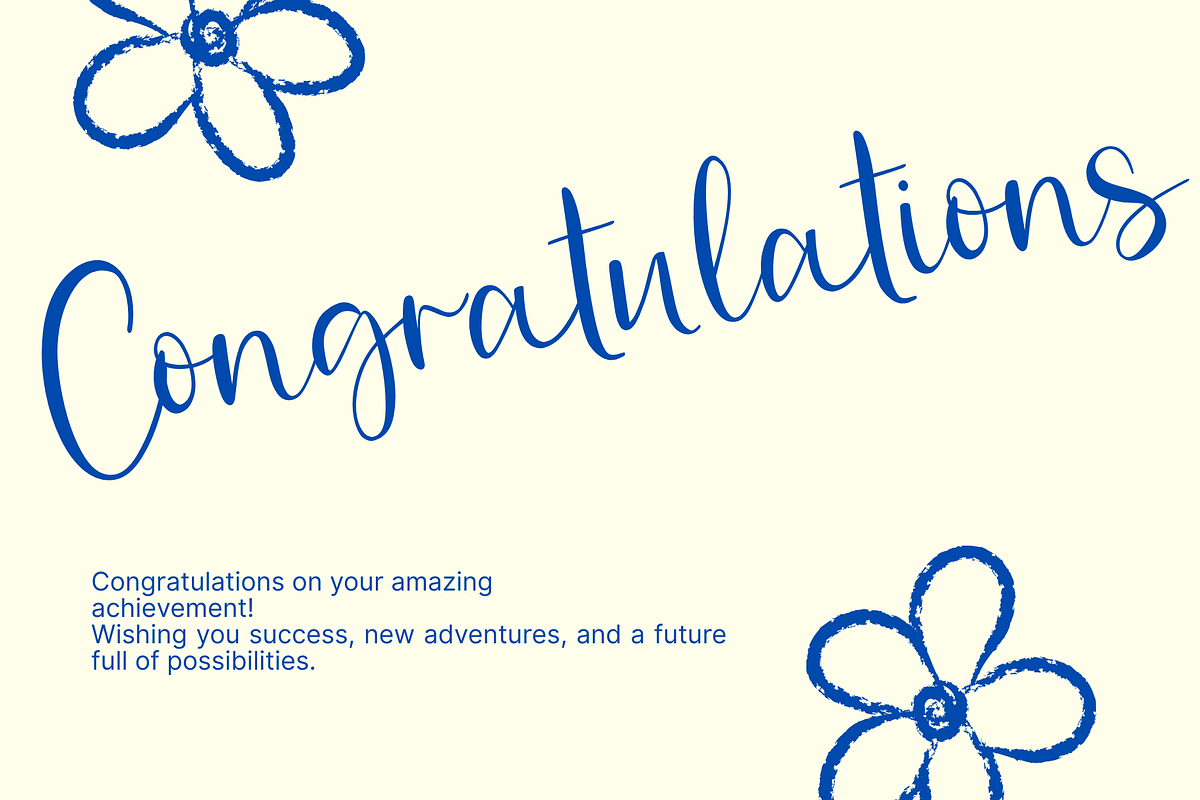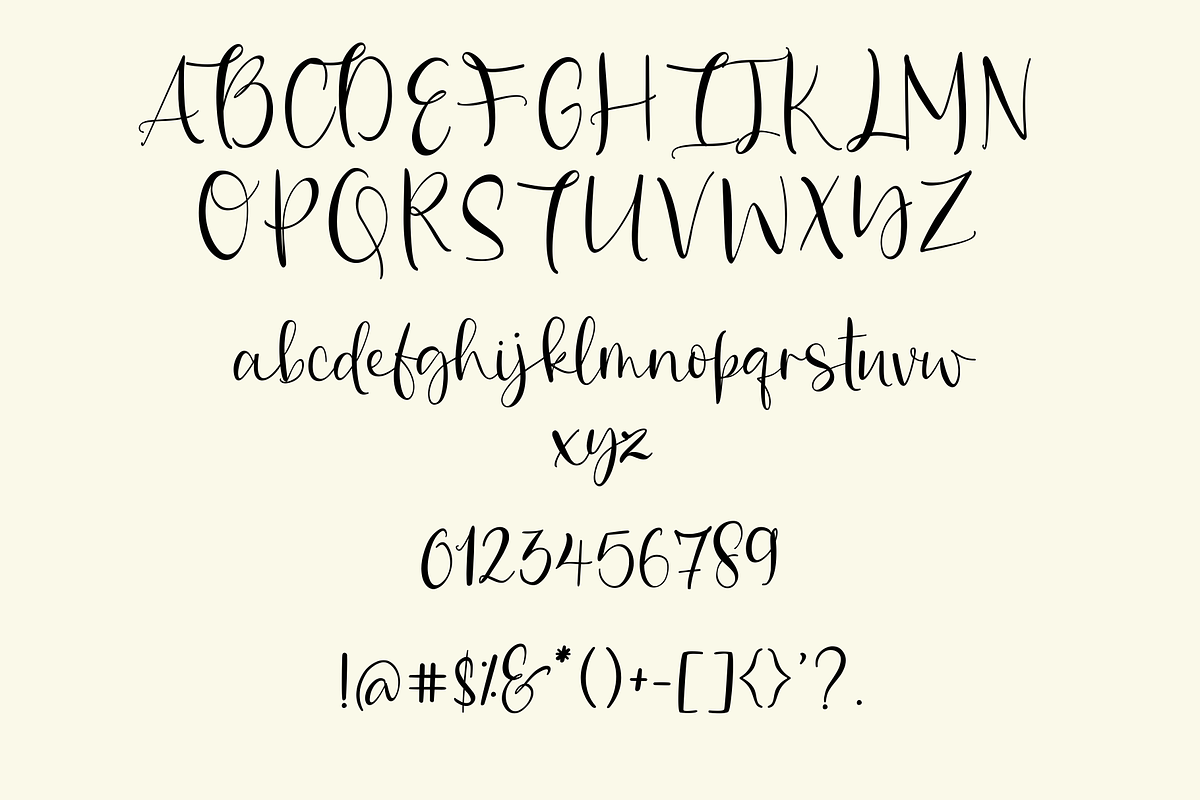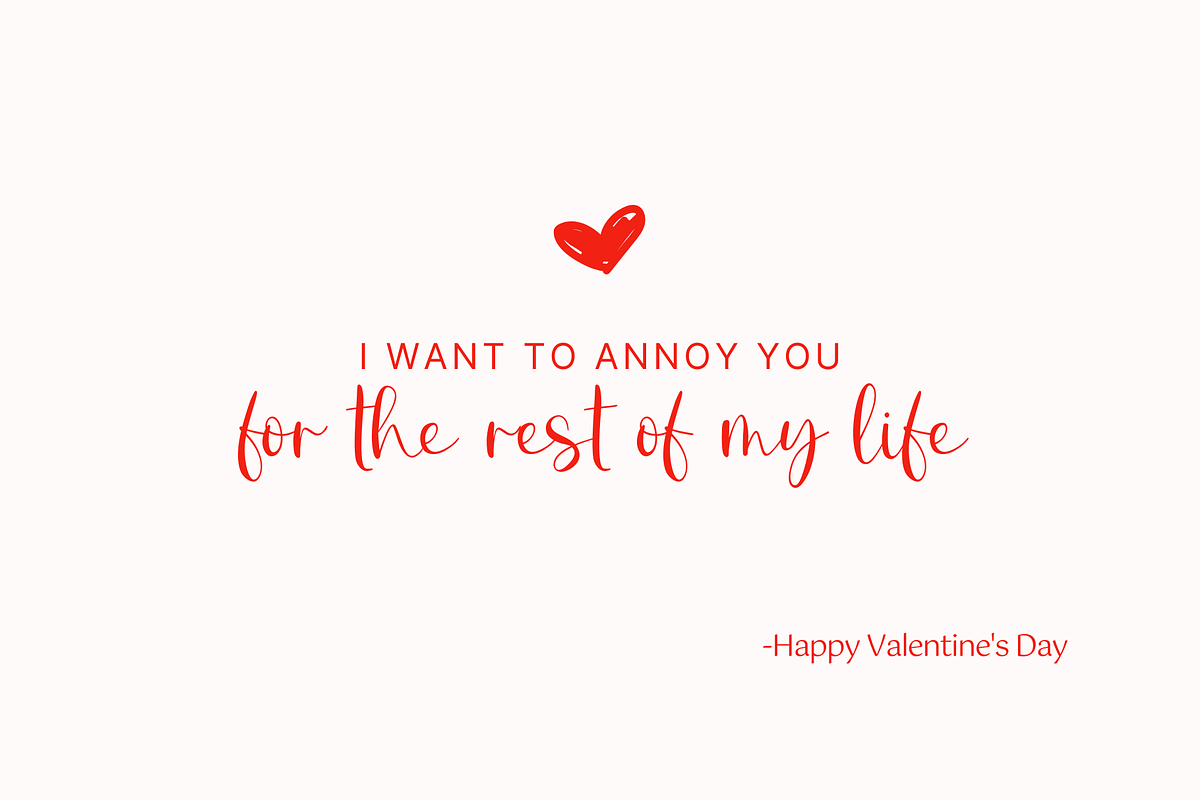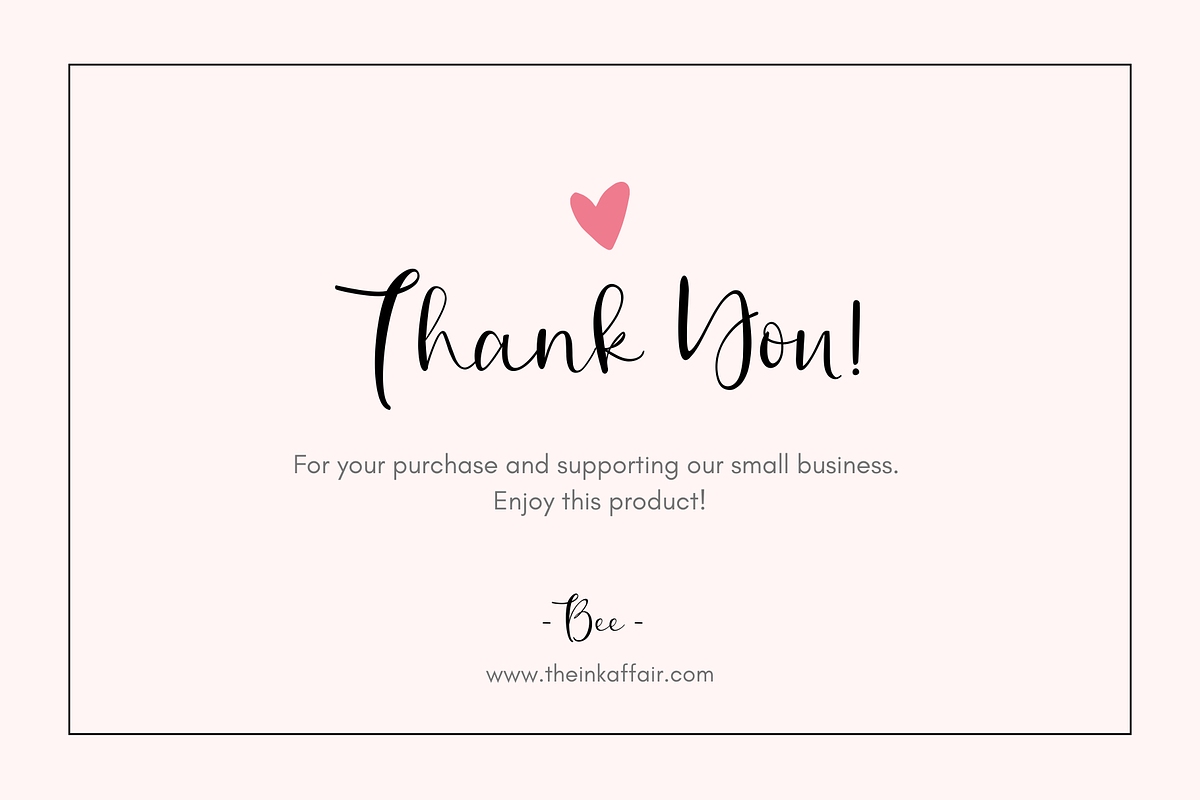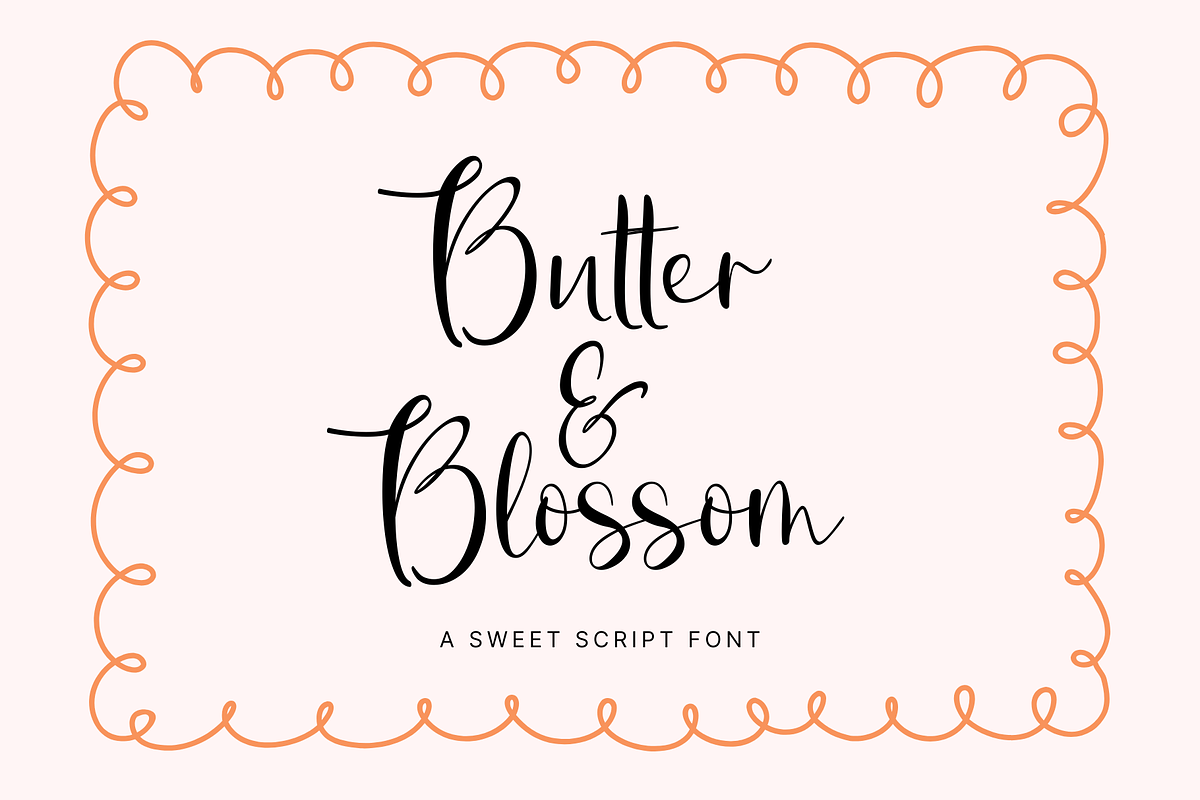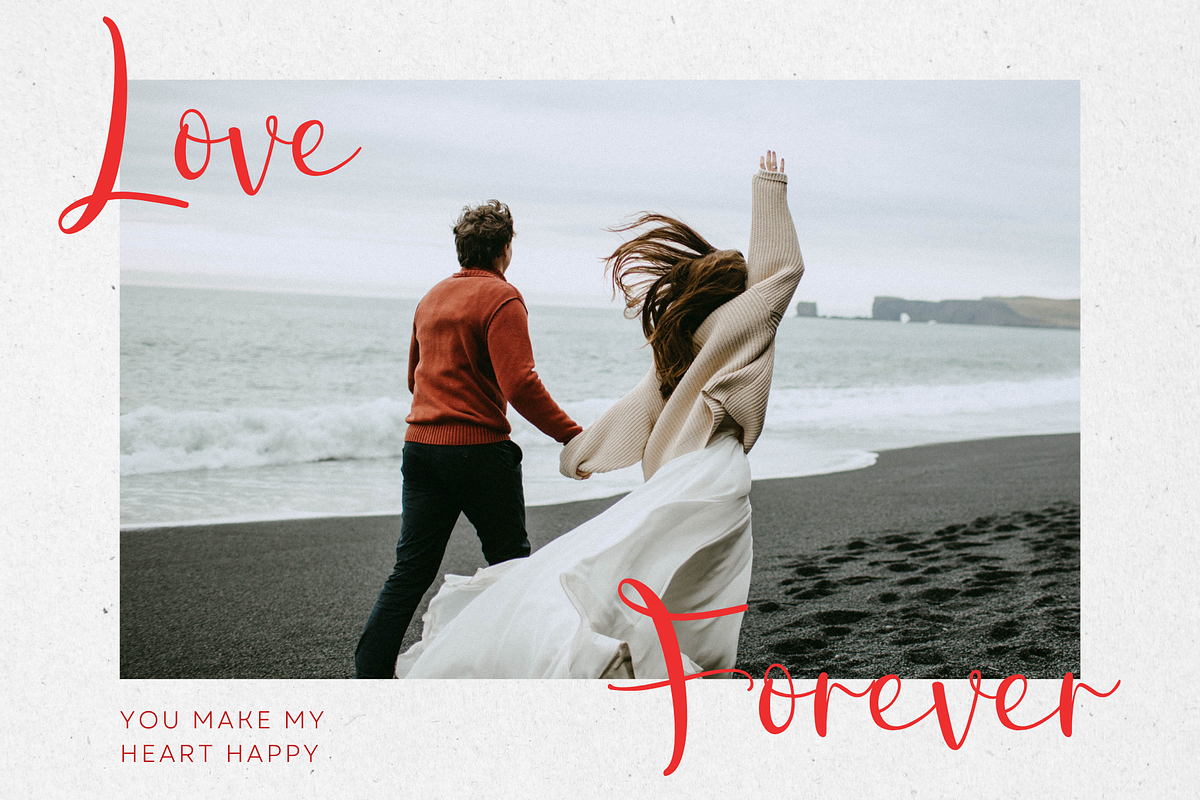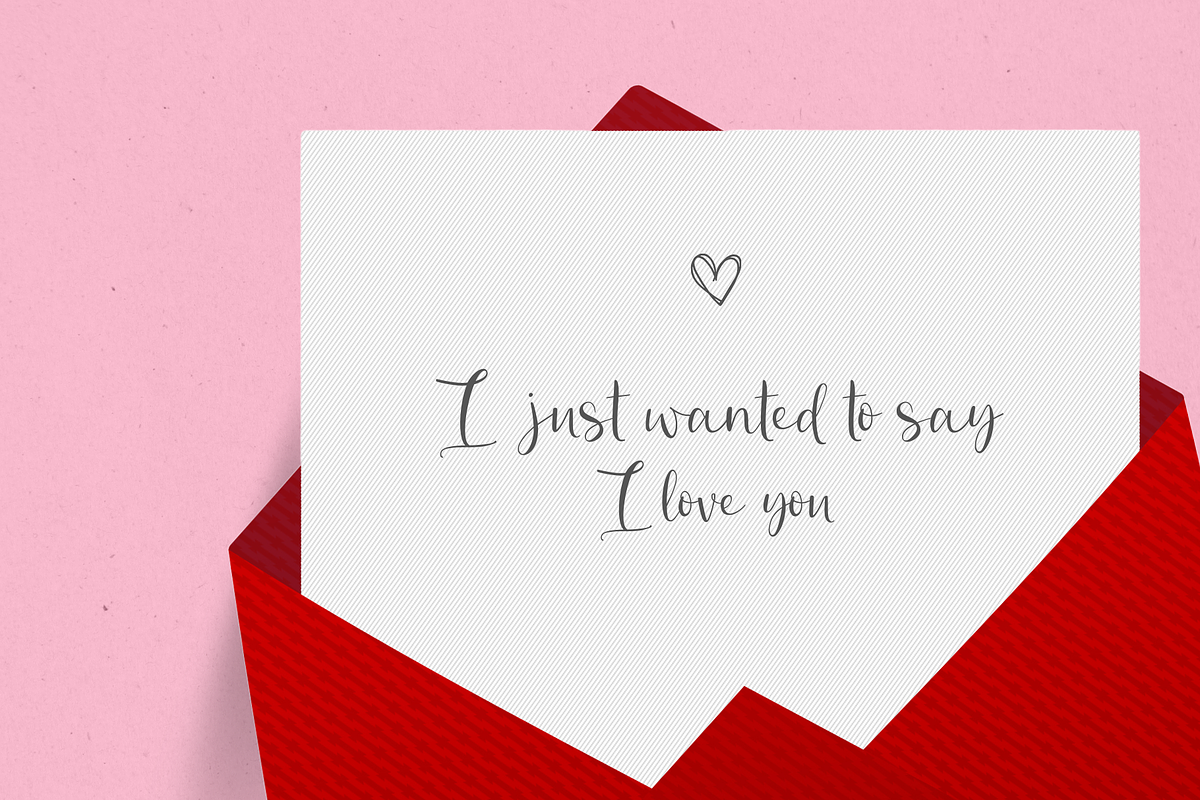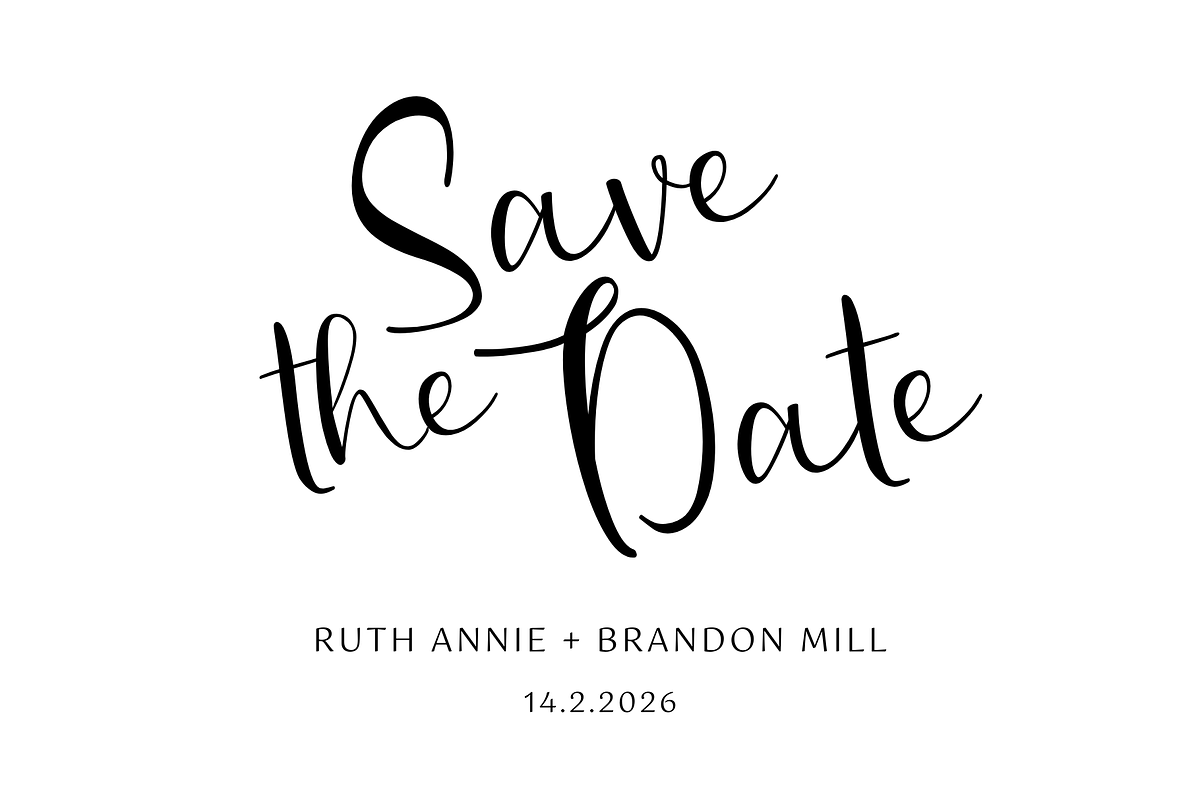
Butter and Blossom | Script Font
Introducing Butter and Blossom, a sweet script font. The font is perfect for branding, laser projects, crafts, logo, wedding invitations, greeting cards, fashion, and all so much more!